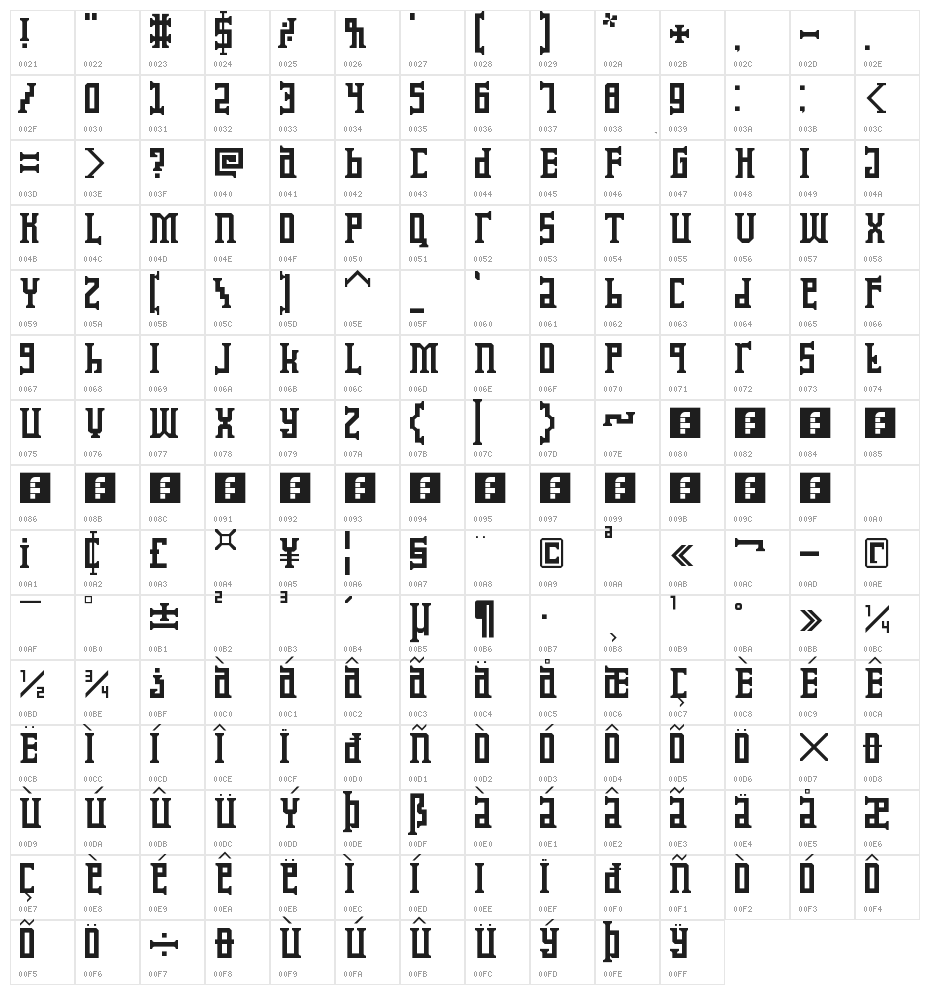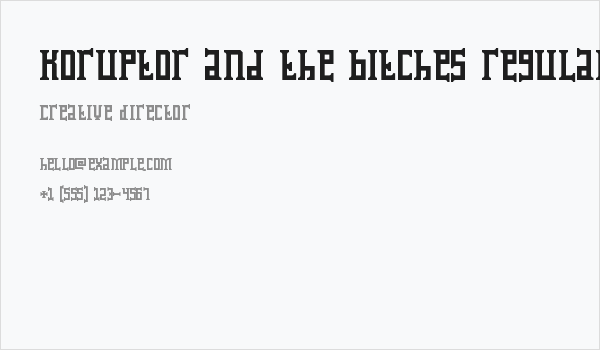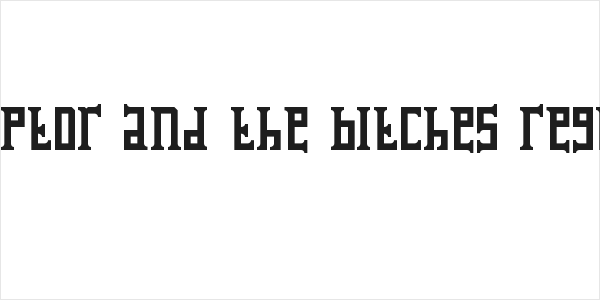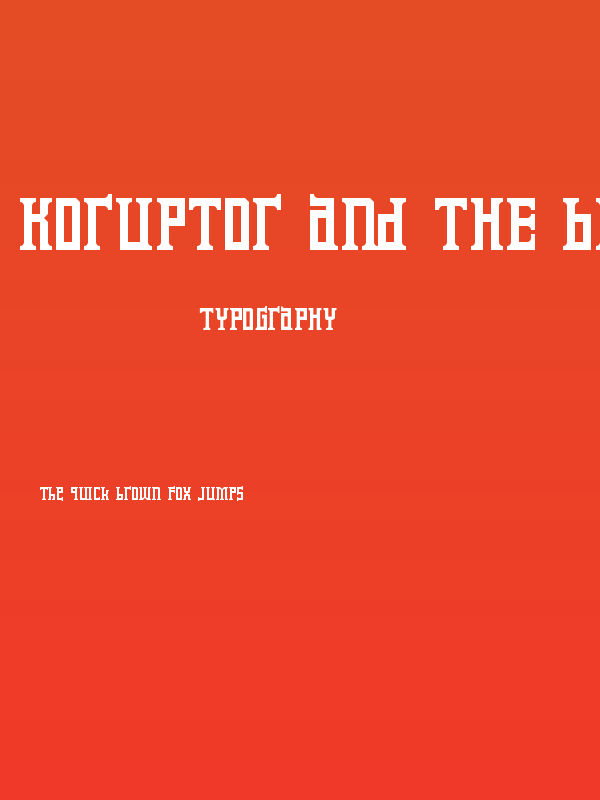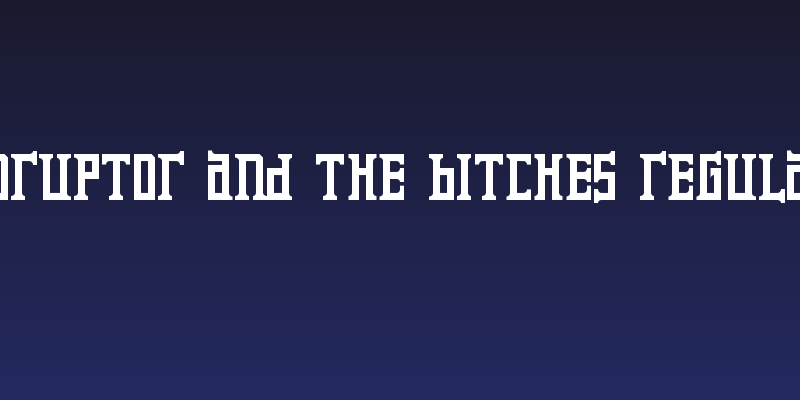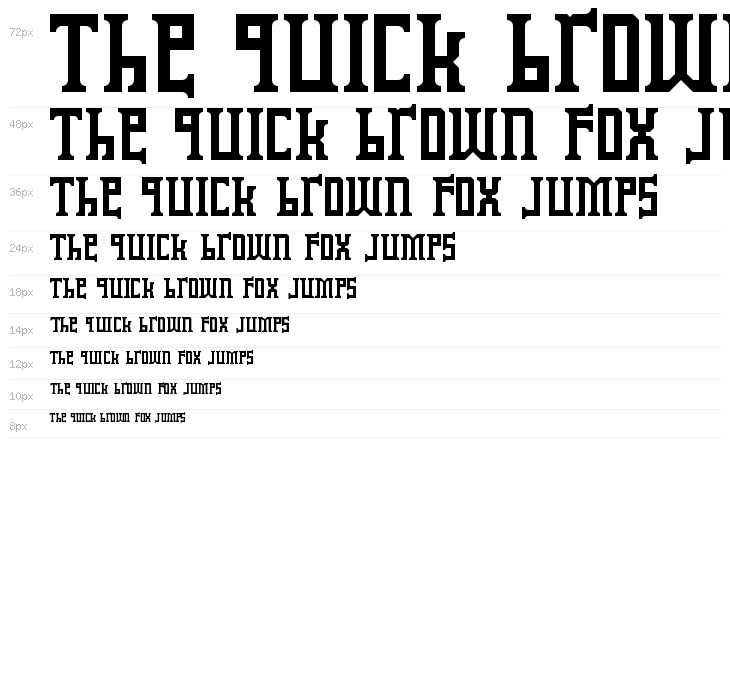
Koruptor and the Bitches Regular Font
Koruptor and the Bitches Regular Description
This font features a bold and striking design with a strong, angular structure. The characters are crafted with a distinct geometric style, incorporating sharp edges and a uniform thickness throughout. The uppercase and lowercase letters maintain a consistent height, creating a cohesive appearance. The numbers and special characters follow the same design principles, ensuring a harmonious look across all elements. This font's unique style is reminiscent of gothic or blackletter influences, making it stand out with its dramatic and impactful presence.
| Proposed Projects | Ideal for projects that require a bold statement, such as posters, album covers, or branding for edgy or alternative products. |